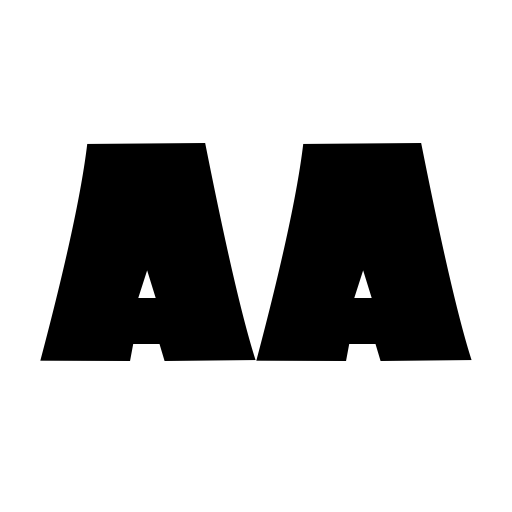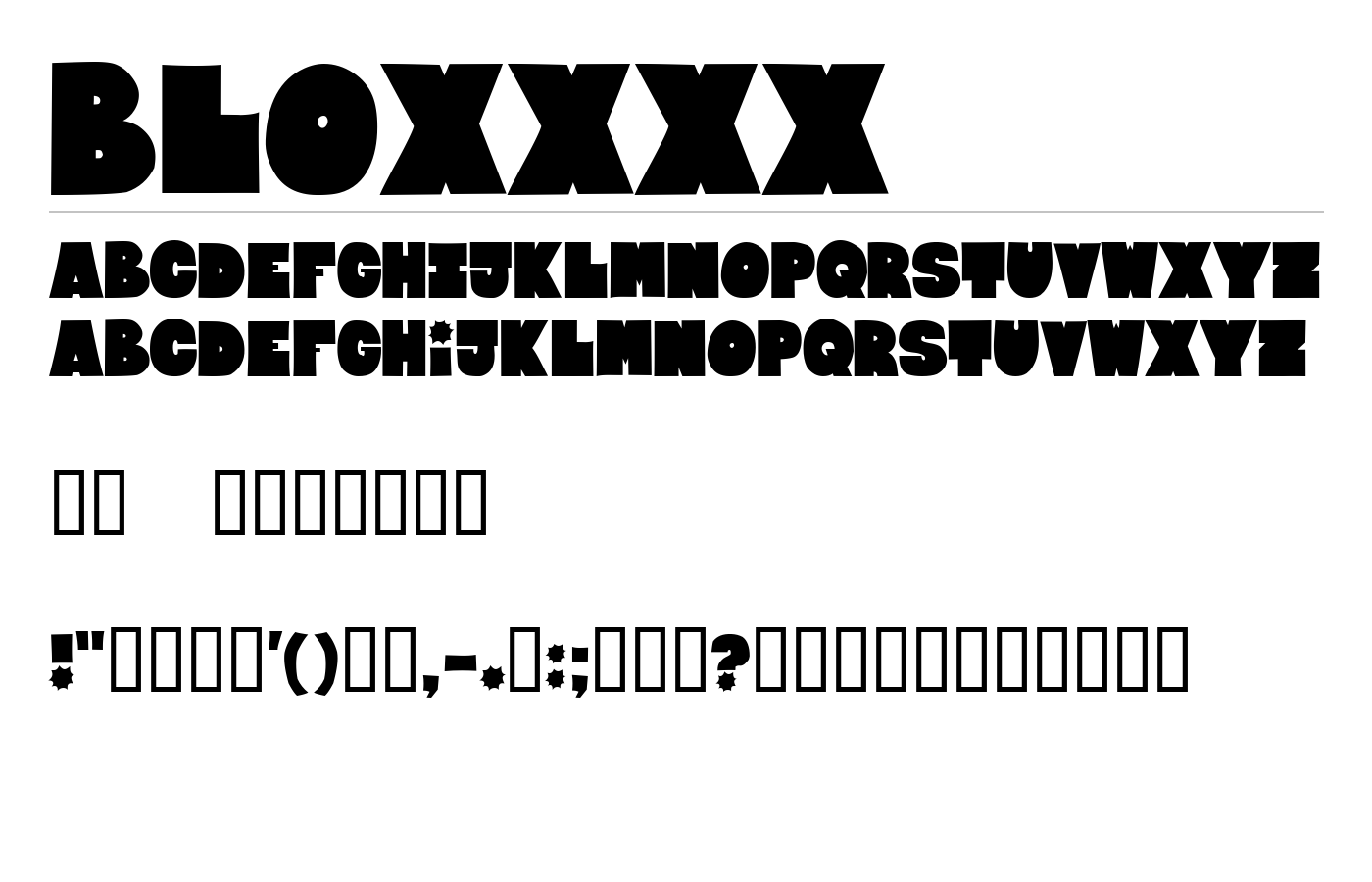
Bloxxxx is a bold, chunky sans-serif font with a playful and sturdy character, featuring wide, heavy letterforms with minimal contrast and quirky, irregular shapes. Its strong presence and unique, fun details make it perfect for eye-catching headlines, posters, or branding that aims to convey energy and creativity. This font works well in designs seeking a bold, informal vibe that stands out with a friendly but impactful style.
Bloxxxx Font